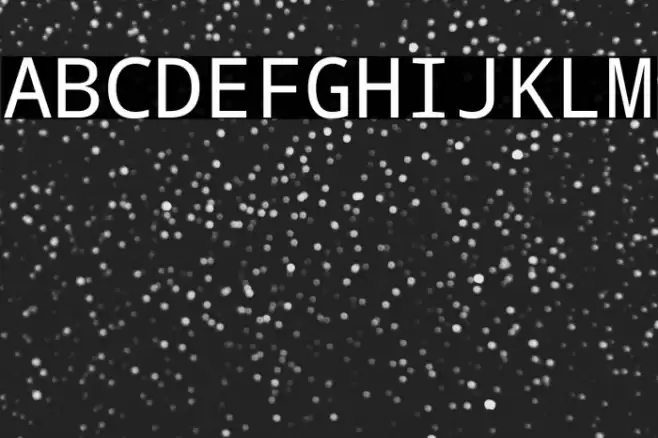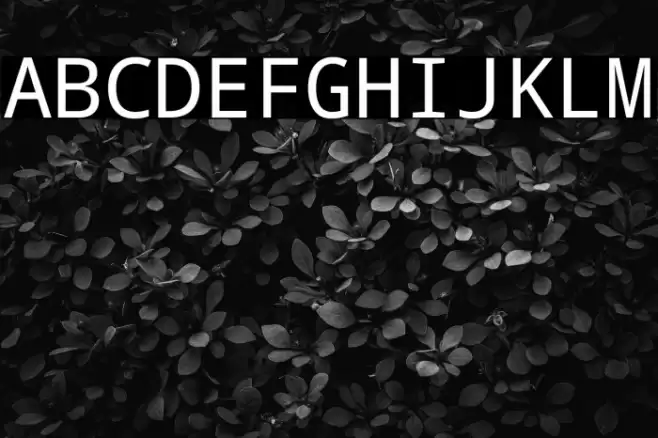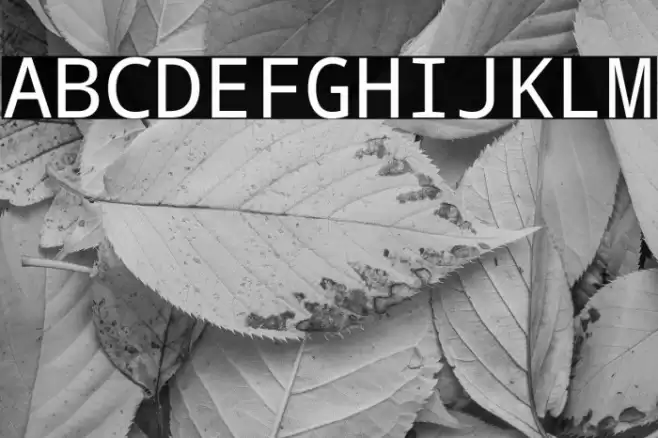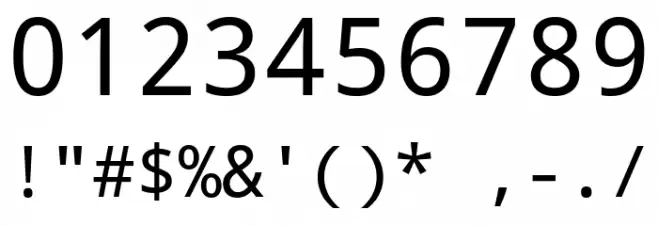
Noto Mono Font
Noto Mono Description
This font is a monospaced typeface characterized by its uniform character width, which ensures that each letter and symbol occupies the same amount of horizontal space. This feature makes it particularly useful for coding and tabular data where alignment is crucial. The design is clean and straightforward, with a modern aesthetic that enhances readability. The strokes are consistent in thickness, providing a balanced and harmonious appearance. The font includes a full set of uppercase and lowercase letters, numerals, and a variety of special characters, making it versatile for different applications.
A clean, monospaced typeface ideal for coding and data alignment from Regular fonts.
- Proposed Projects: Ideal for coding environments, technical documentation, and data tables.
- Use Case: Coding, Technical documentation, Data tables